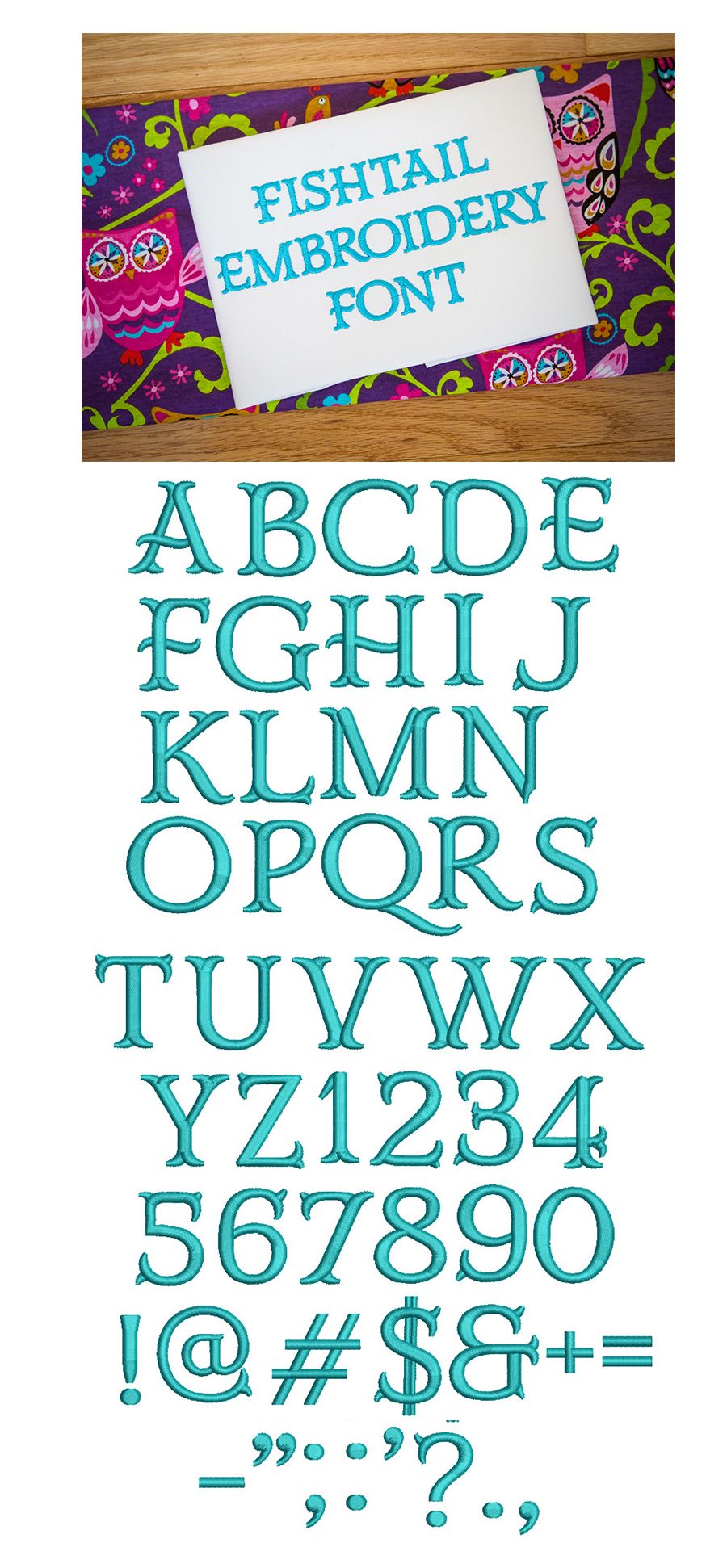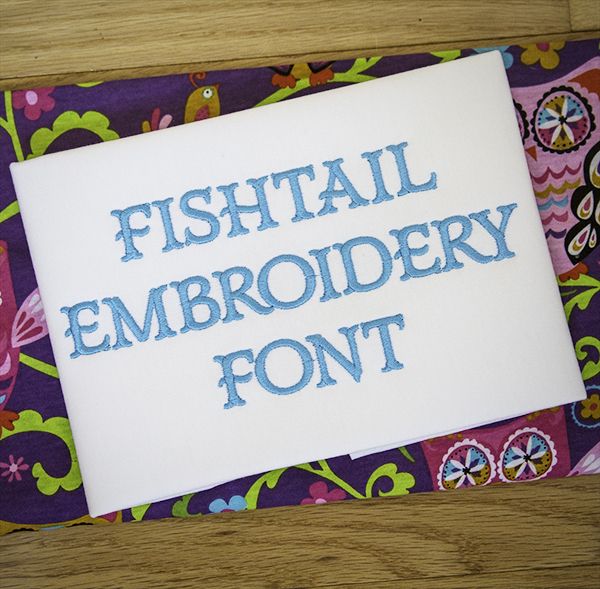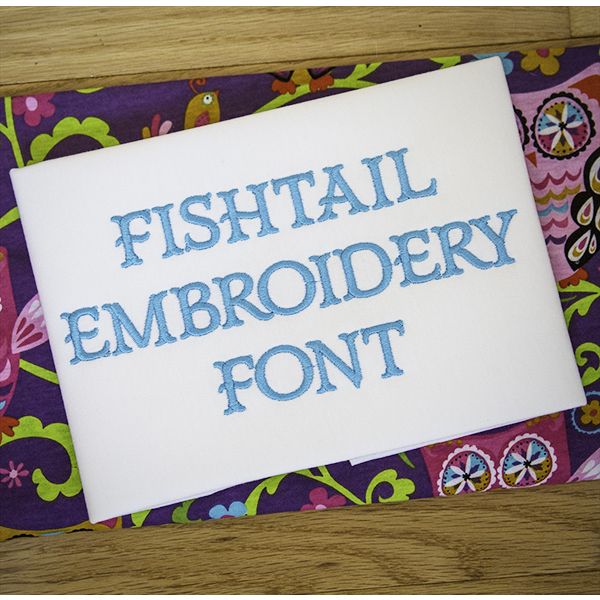
Fishtail Satin Stitch Embroidery Font
Cute, classic style embroidery font. Unicase. All of our font alphabets are 100% manually digitized to bring you maximum stitch quality.